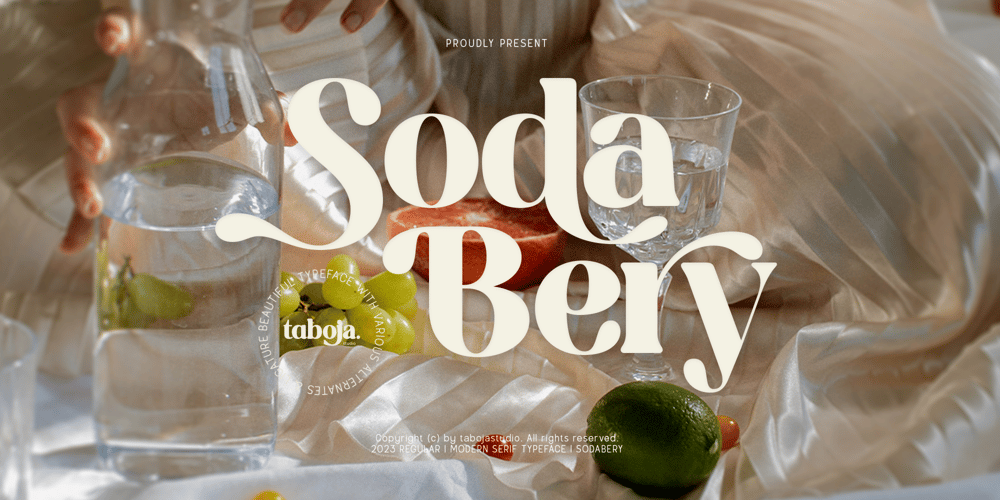
Sodabery Modern Serif Font Family was designed by Arif Rijal, Yusilo Oktaprima Ardani and published by Taboja Studio. Sodabery Modern Serif contains 1 styles and family package options. Sodabery is Modern elegant serif typeface, perfect for projects that require a vintage feel, such as posters, logos, packaging, and promotional materials that aim to capture a nostalgic and sophisticated atmosphere. This font will add a special touch to your designs and captivate viewers with its retro allure and distinctiveness.Sodabery Features: Regular Uppercase And Lowercase Alternates And Ligatures Numerals & Punctuation Accented characters Multilingual Support Unicode PUA Encoded While using this product, if you encounter any problem or spot something we may have missed, please don’t hesitate to drop us a message. We’d love to hear your feedbacks in order to further fine-tune our products.Stay creative and have a wonderful day.